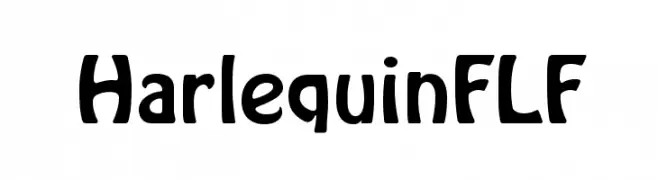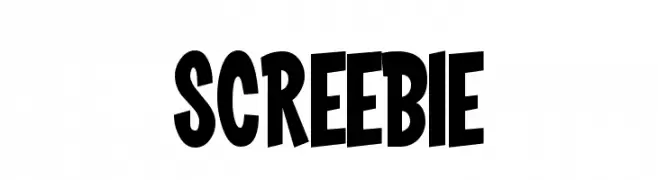
A bold, artistic font with flowing lines and Art Nouveau influences.
A bold, three-dimensional font with layered, geometric designs.
A bold, geometric font with a three-dimensional effect and modern style.
A modern, geometric font with bold, interconnected lines and a futuristic aesthetic.
A playful, hand-drawn font with bold, uneven strokes and a whimsical style.
A bold, playful font with a hand-drawn, dynamic style.
Cartoonish, musician-themed pictorial font.
A decorative font made from illustrated musical instruments.
Cartoonish, illustrated font with musical character scenes.
A decorative pictogram font of musicians and musical scenes.
Illustrative font with each character as a unique musical instrument drawing.
A display font made from hand-drawn musical instrument illustrations.
Hand-drawn, music-themed decorative font with unique illustrations for each character.
Hand-drawn, cartoonish font with musical character illustrations.
A bold, vintage-style serif font with high contrast and a distressed texture.
A bold, dynamic serif font with strong strokes and a modern twist.
A classic serif font with elegant strokes and moderate contrast.
A dynamic serif font with calligraphic influences and sharp serifs.
An elegant, flowing script font with a classic calligraphic style.
A playful, hand-drawn font with a childlike and whimsical style.
A pictogram-based decorative font with surreal and whimsical illustrations.
A pictogram dingbat font with diverse icons inside house shapes.
A playful, abstract, and illustrative decorative font with quirky, hand-drawn characters.
A decorative font with intricate, abstract animal designs inspired by tribal art.
A decorative display font featuring robot-themed letterforms.
Whimsical, illustrated font with mythical creatures in circles.
Ornate, illustrative font with mythological figures as glyphs.
Mythology-themed decorative font with illustrated characters.
A decorative font featuring detailed mythological and fantasy-themed illustrations.
Illustrative, mythological-themed display font with each character in a square frame.
A collection of mythological creature illustrations in place of traditional font characters.
Mythology-inspired decorative display font with illustrated characters.
Cartoonish, myth-themed illustrative font with unique character drawings.